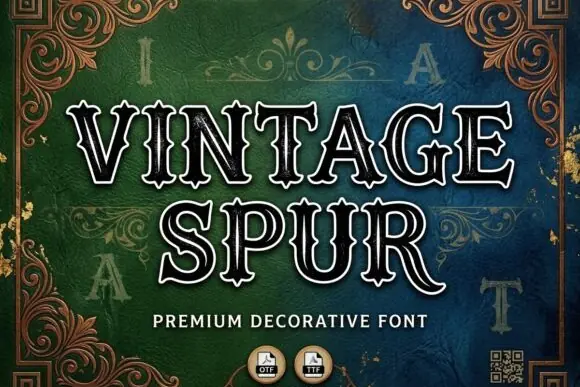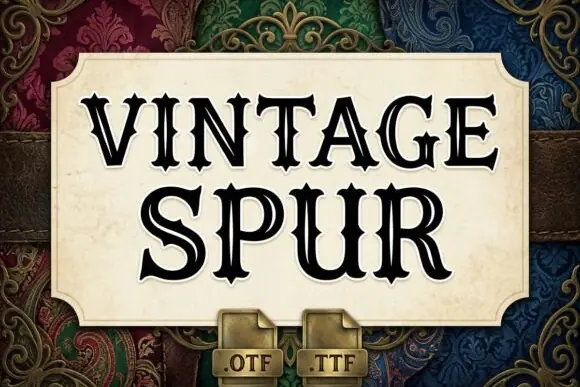
Vintage Spur Font | Retro Outline Display Font with Spurred Serifs for Circus Posters, Western Designs, Tattoo Lettering, Biker Apparel & Logos
Create bold, nostalgic, and eye-catching designs with Vintage Spur Font, a striking display font featuring a classic vintage outline style, elegant inline detailing, and bold spurred serifs. This font brings a strong old-school personality to your creative projects, making it perfect for retro, western, circus, carnival, tattoo, biker, and vintage branding designs.
Vintage Spur Font has a distinct retro look that works beautifully for circus posters, carnival graphics, vintage western artwork, traditional tattoo-style lettering, biker apparel, monograms, retro logos, product labels, packaging, t-shirt designs, stickers, wall art, and promotional designs.
Because of its clean outline style, this font is also useful for crafters, SVG designers, Cricut users, and Silhouette users who want to create layered vinyl designs, coloring pages, custom decals, and printable craft projects. Its decorative yet readable style makes it ideal for display text, bold headings, statement graphics, and vintage-inspired merchandise.
• Circus and carnival designs
• Vintage western posters
• Traditional tattoo-style lettering
• Biker apparel and motorcycle graphics
• Retro logo designs
• Monograms and initials
• T-shirt and hoodie designs
• Stickers and decals
• Product packaging and labels
• Cricut and Silhouette projects
• Layered vinyl designs
• SVG craft projects
• Custom coloring pages
• Printable wall art and posters
• Classic vintage outline display style
• Elegant inline detailing
• Bold spurred serif letterforms
• Perfect for retro, western, circus, and tattoo-inspired designs
• Great for Cricut, Silhouette, SVG, and layered vinyl projects
• Strong display font for logos, posters, apparel, and branding
• Adds an old-school handcrafted feel to creative work
Vintage Spur Font is a strong choice for designers, crafters, apparel sellers, tattoo-style creators, and small business owners who want a bold retro font with vintage charm and decorative impact.